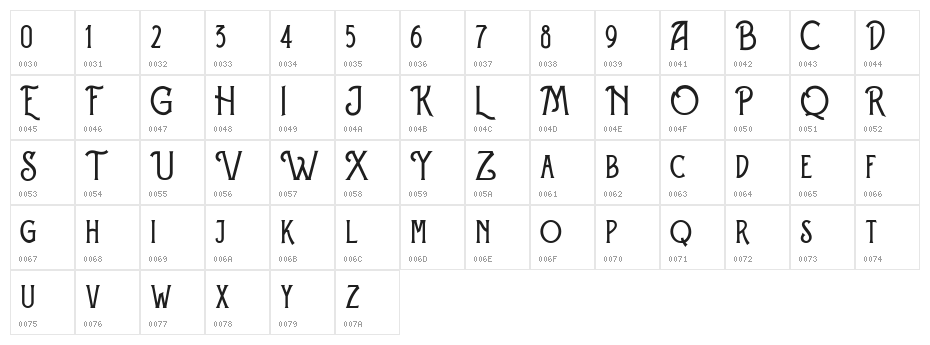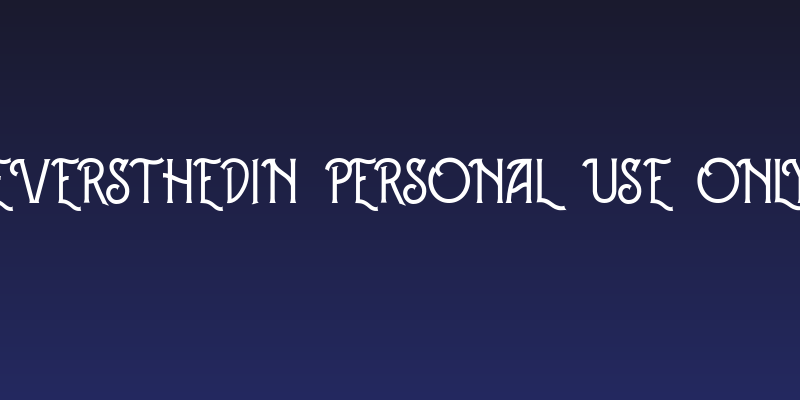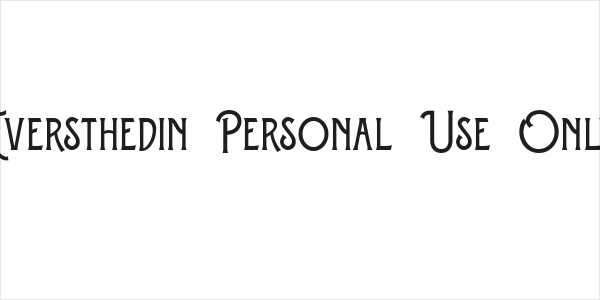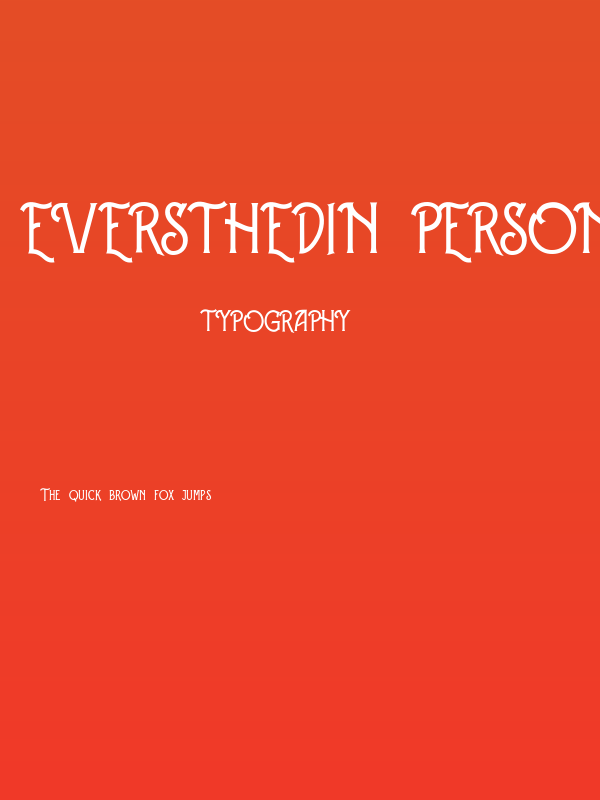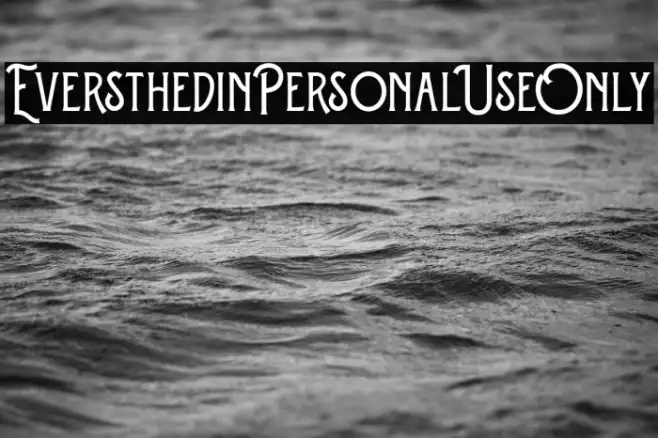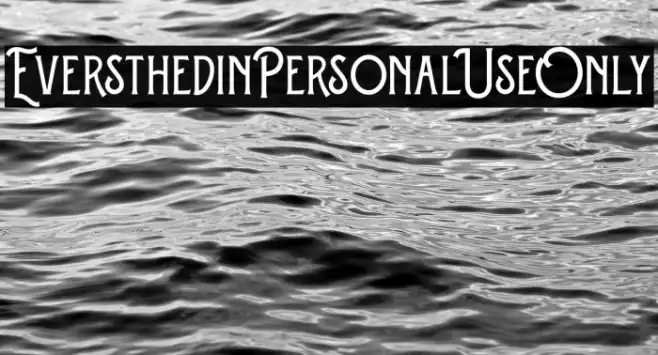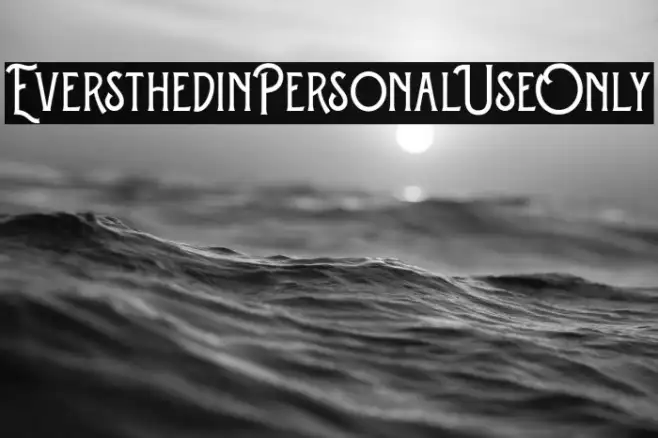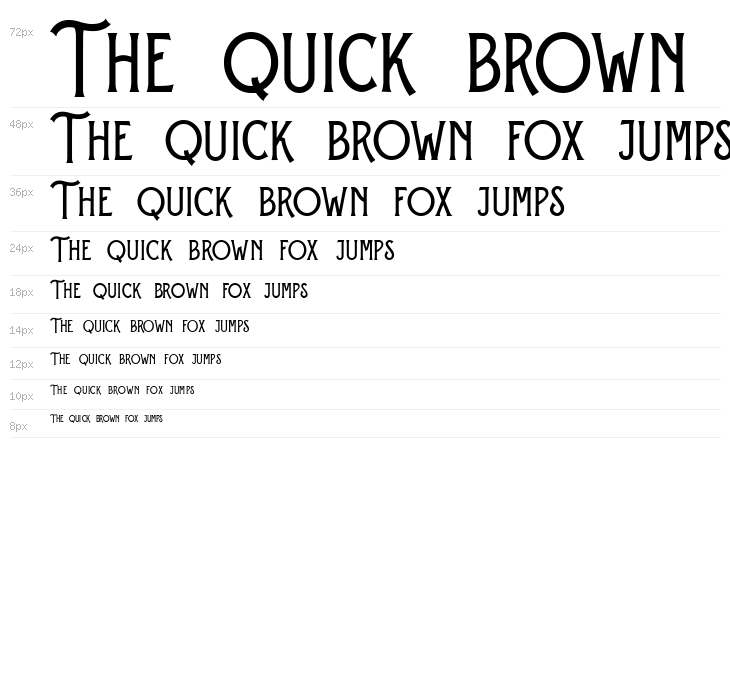
Eversthedin-Personal Use Only Font
Eversthedin-Personal Use Only Description
This font features a unique blend of modern and classic elements, characterized by its decorative and slightly whimsical style. The uppercase letters exhibit a distinct flair with curved and angular strokes, giving them a dynamic and artistic appearance. The lowercase letters maintain a consistent style, complementing the uppercase with their own subtle curves and angles. The numerals are clear and bold, ensuring readability while maintaining the overall aesthetic. This font's special characters are designed to match the decorative style, making them suitable for creative and expressive text compositions.
| Proposed Projects | Ideal for creative projects such as posters, invitations, branding, and any design that requires a touch of elegance and flair. |